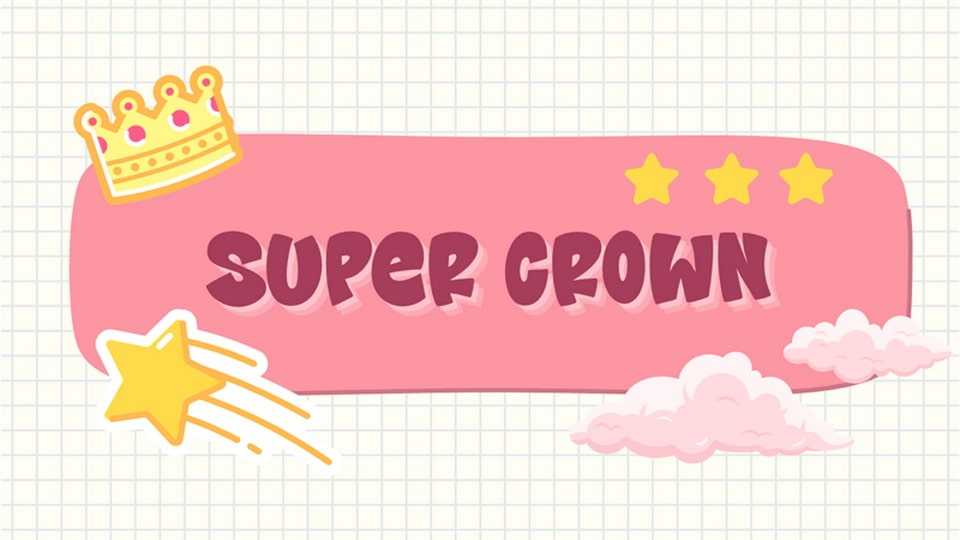
Download Super Crown font, a bold and bubbly hand-drawn display typeface full of joy and charm. Its thick, rounded letterforms give a cartoon-like feel—perfect for adding a touch of fun and fantasy.